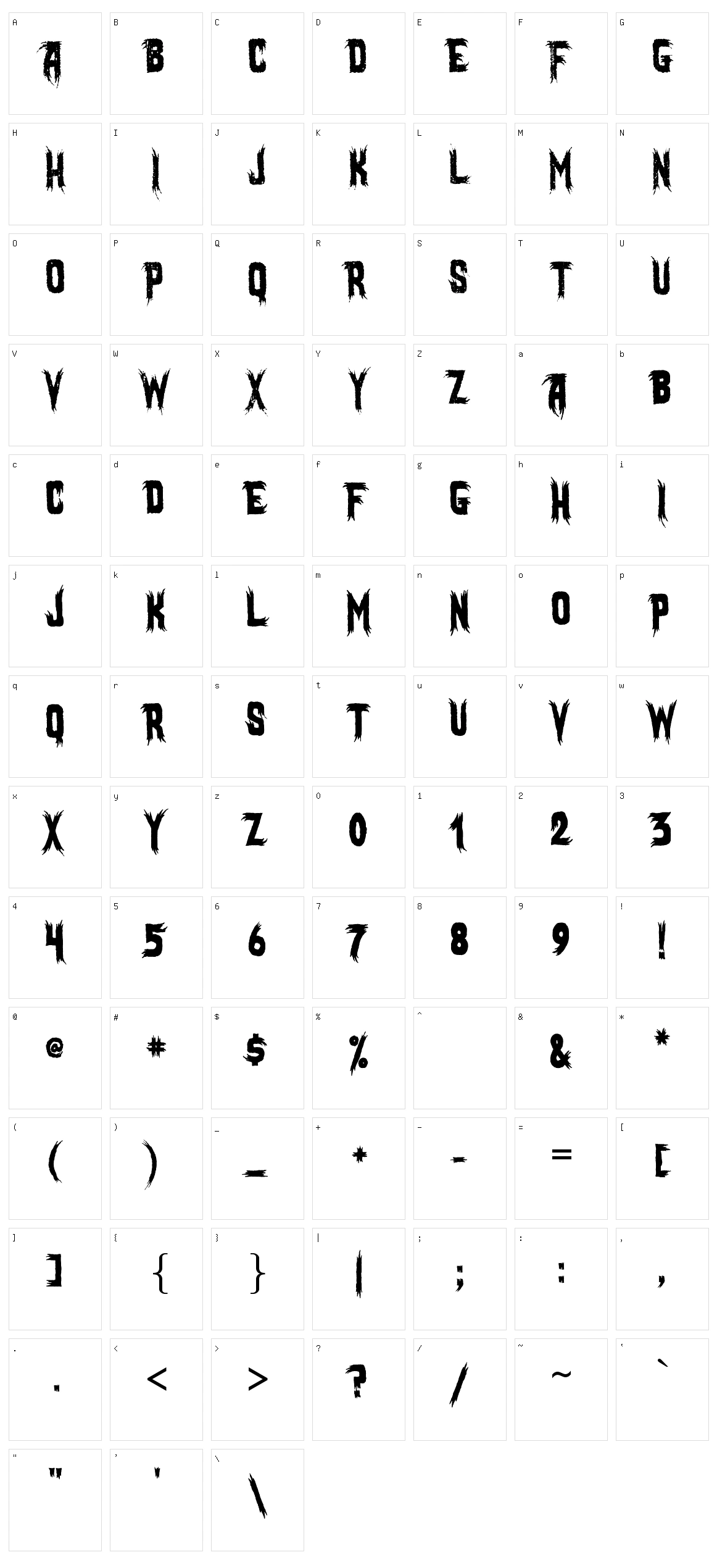
Mostly Ghostly Font by Chad Savage
Created 2010, hand-lettered as an homage to classic horror movie poster fonts.
This font is intended for specialty and graphic uses. It will look just awful if used in a paragraph format.